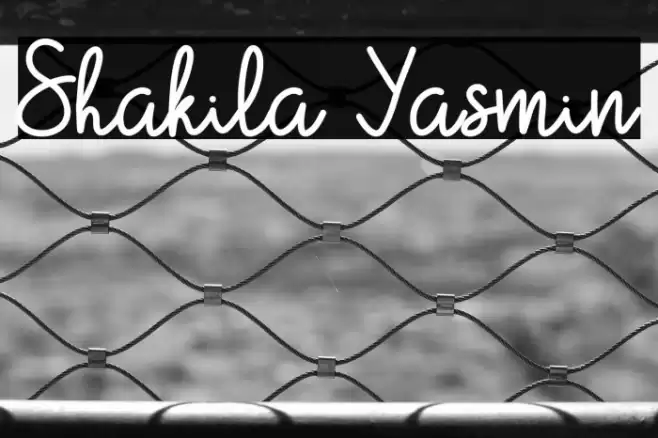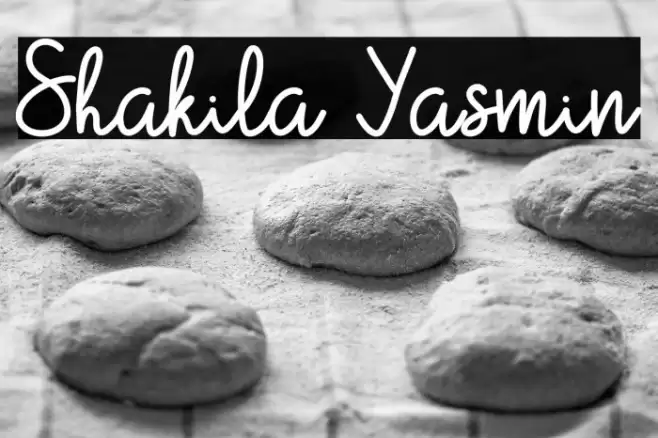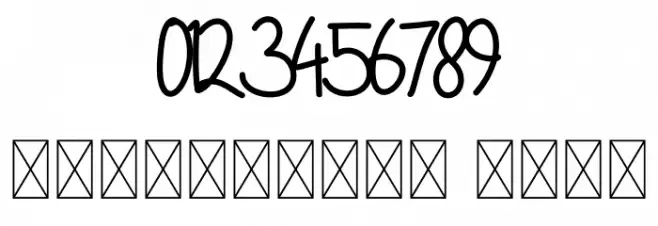
Shakila Yasmin Font
Shakila Yasmin Description
This font features a playful and casual handwritten style, characterized by its smooth, flowing lines and slightly irregular shapes. The uppercase letters are tall and narrow, with a consistent stroke width that gives them a clean appearance. The lowercase letters maintain a similar style, with some letters featuring loops and curves that add to the font's informal charm. The numbers are well-proportioned and align with the overall aesthetic, making them easy to read. This font is versatile and can be used to convey a friendly and approachable tone.
A playful, casual handwritten font with smooth, flowing lines from Regular fonts.
- Font: Shakila Yasmin
- Proposed Projects: Ideal for greeting cards, invitations, personal branding, and social media graphics.
- Overall Style: Casual
- Use Case: Logos, Headlines, Informal Text